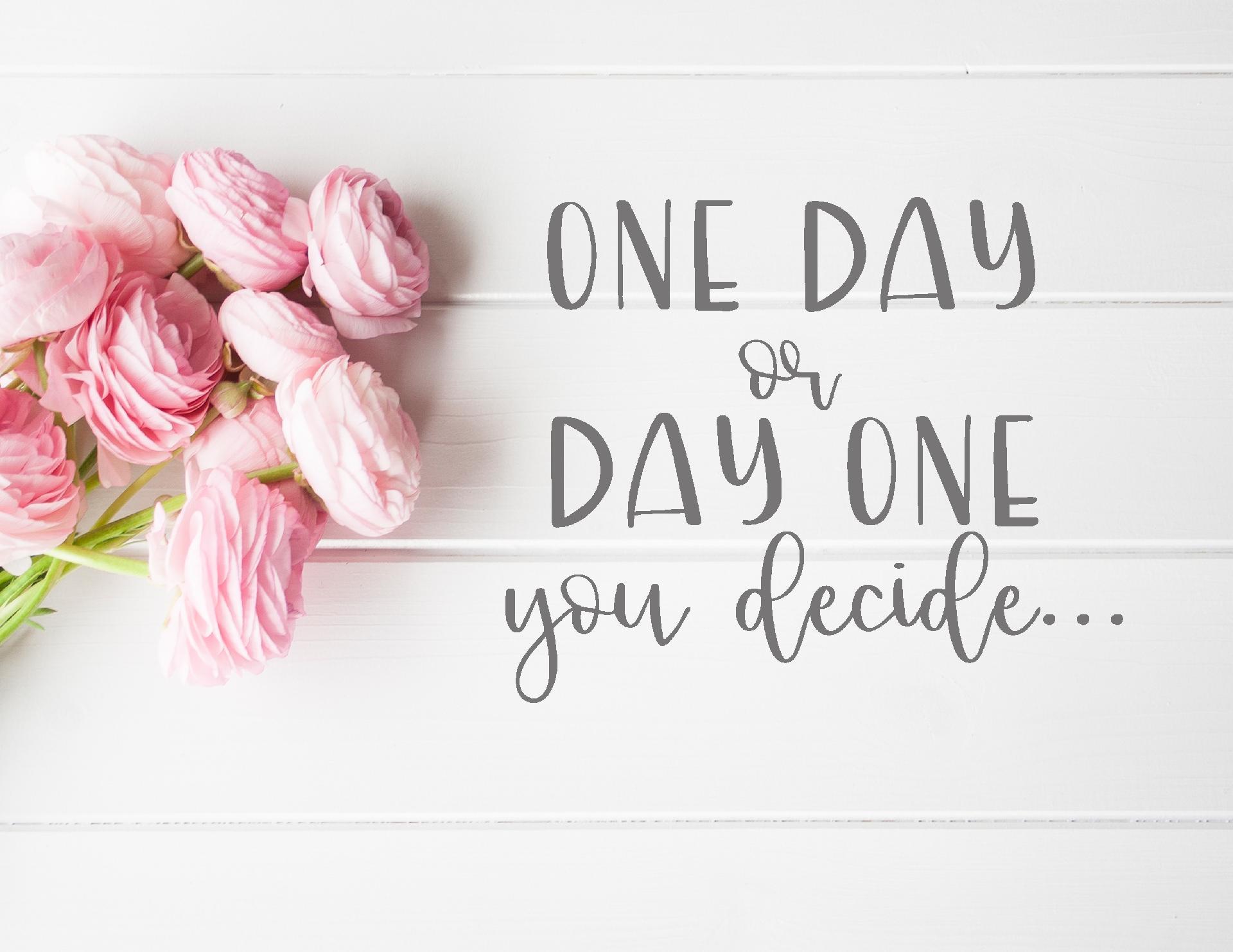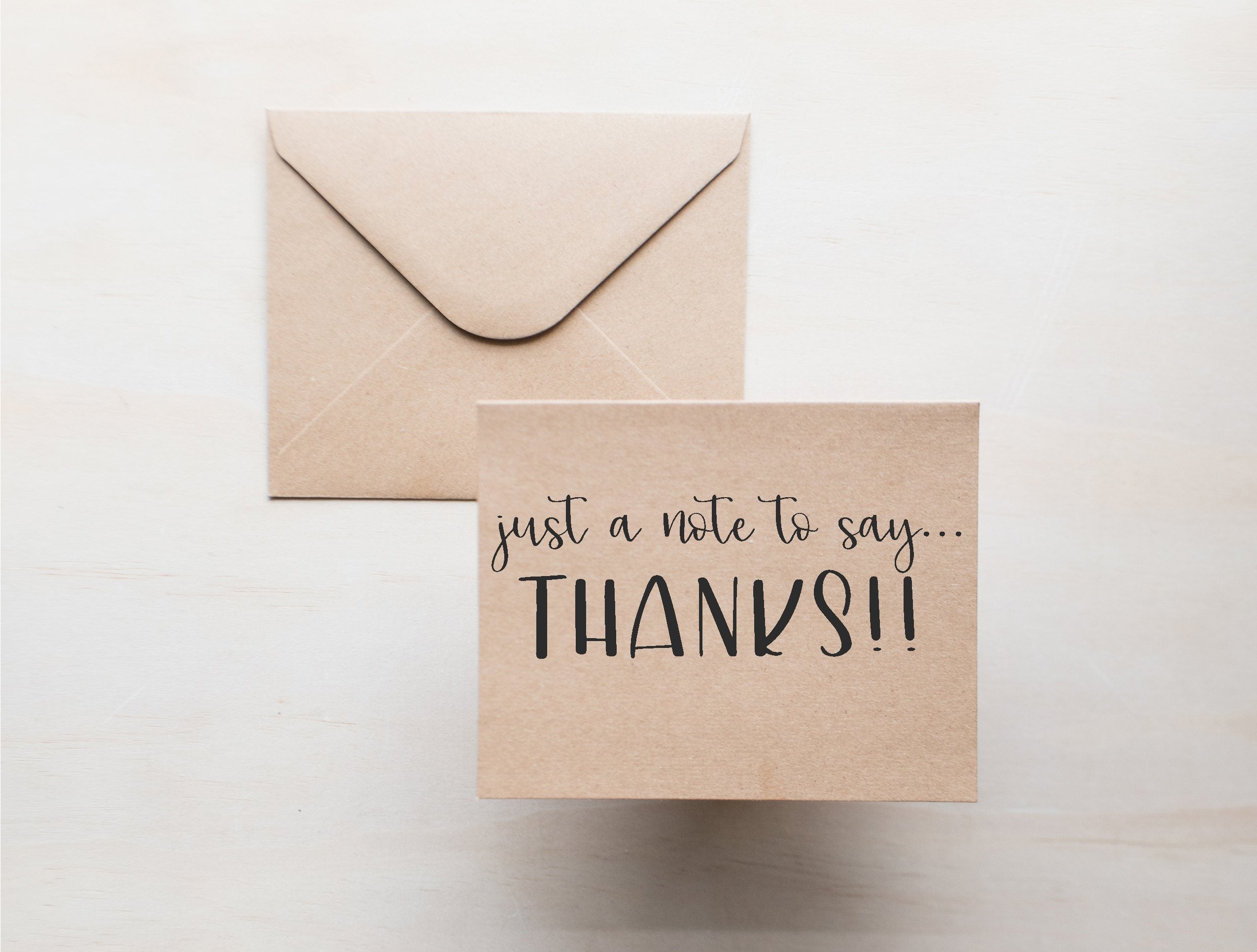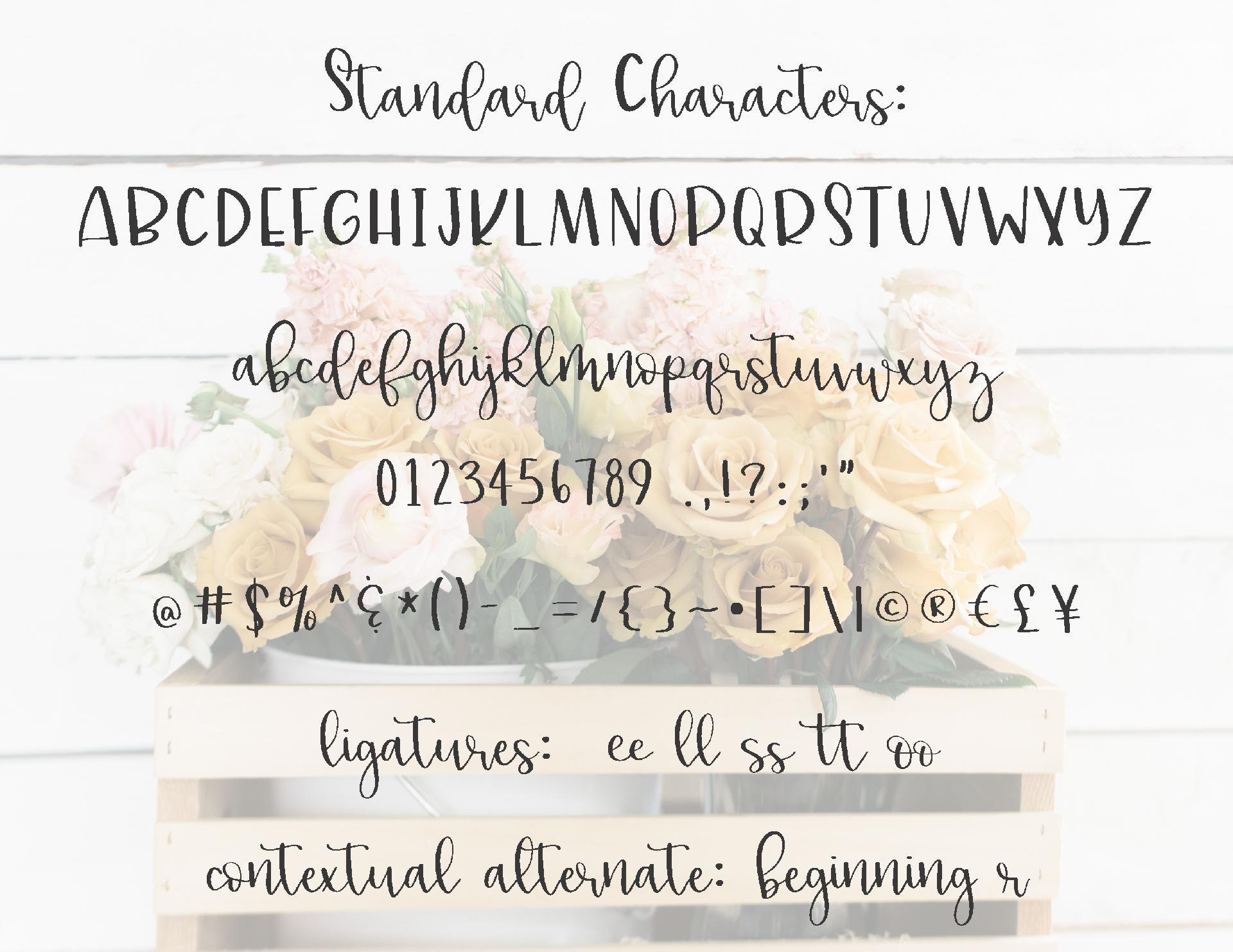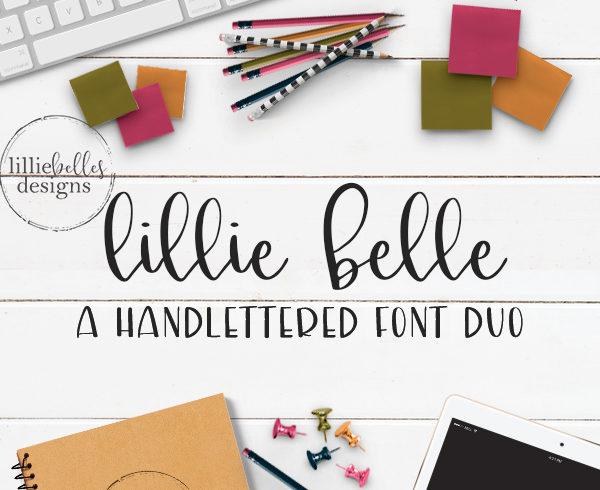
lillie belle
About lillie belle
lillie belle – A handlettered font style duo. Two styles in one font!  Not only do you get a fun print uppercase with this font, you also get a bouncy script lowercase. Here’s what you get: All print uppercase All script lowercase Number, symbols & punctuation Standard ligatures PUA encoded making this a cut-friendly font